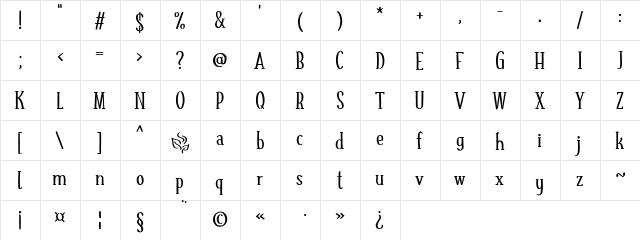
FRESH_TEA Demo
| Foundry | Shaped Fonts |
| Designer | Philip Trautmann |
Design Context for FRESH_TEA Typeface
FRESH_TEA takes a measured approach to typography — its balanced proportions and neutral character make it a reliable workhorse for both digital and print work.